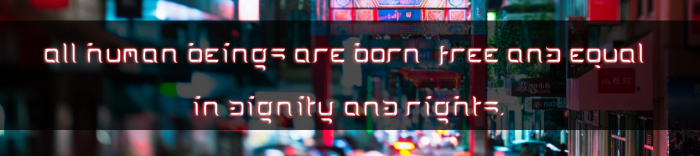
• FontStruct version of Doris Orange by T26 (thanks to Eskema for helping with identifying it). Oriental, Japanese-looking font.
A great one!
Doris Orange by T26. nice work
I think this is really great work and very original. I like it a lot. Would love to clone it to see how you have managed it!!
The text is article 1 of the "Universal declaration of human rights".
(not full)
@18man - I assume "(not full)" means that it does not contain a complete character set that may be found elsewhere.  If so, was it really necessary to make such an obvious comment for a font that hasn't been updated in nearly 17 years? :^\
i meant the sample that @tsafs posted, sorry